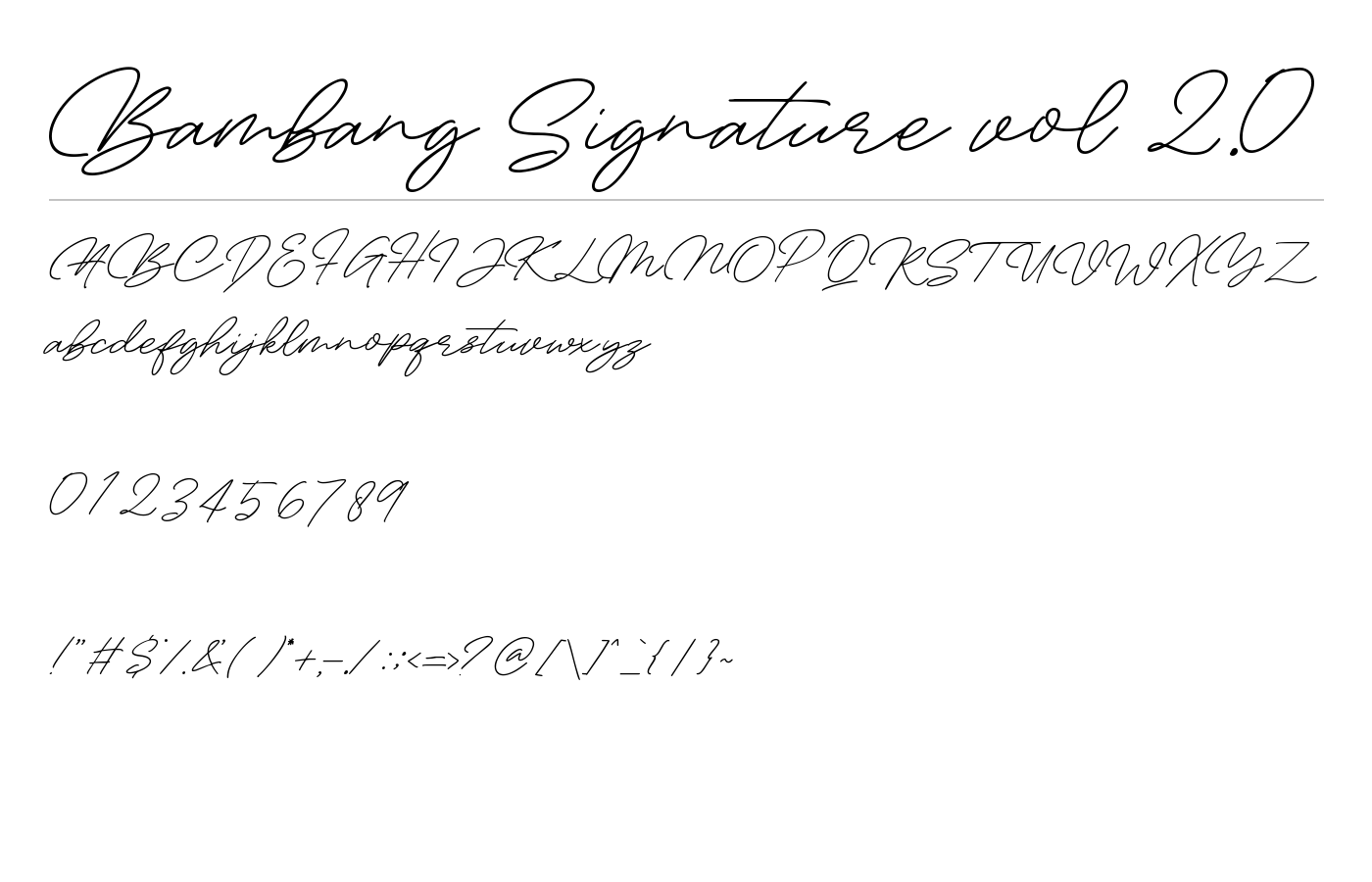
Bambang Signature vol 2.0 is a delicate, elegant script font that mimics natural handwriting with smooth, flowing strokes and a refined, airy feel. Its slender, slightly slanted letterforms and graceful curves make it ideal for branding, invitations, and stylish logos where a personal, sophisticated touch is desired. This font works beautifully in projects that seek a modern yet timeless signature style.
Bambang Signature vol 2.0 Font
About Bambang Signature vol 2.0 Font
| Font family | Bambang Signature vol 2.0 Font |
| Designer | Dimas Prasetyo |